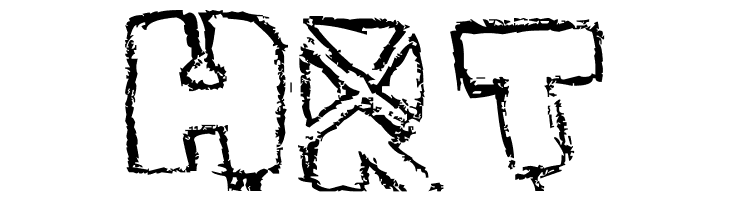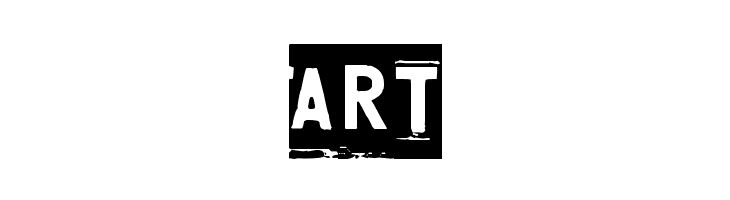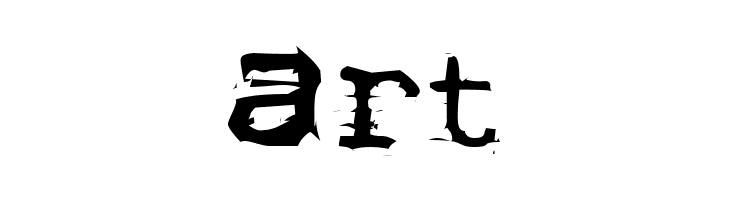
A bold, distressed font with a grunge, cut-out style.
A bold, distressed font with a rugged, grunge aesthetic.
A bold, distressed font with a grunge aesthetic and angular, geometric characters.
A bold, distressed font with a grunge, hand-drawn aesthetic.
A bold, distressed font with a grunge aesthetic and chaotic texture.
A bold, distressed font with a grunge aesthetic, perfect for edgy designs.